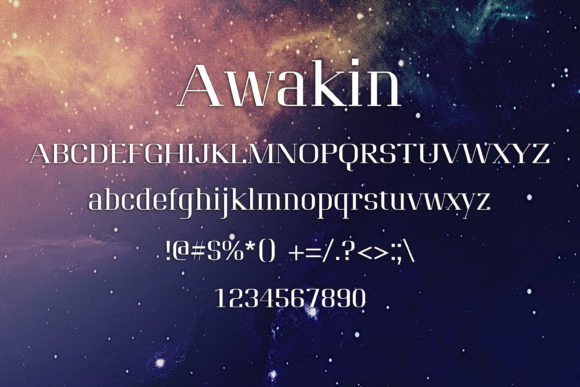
Introducing Awakin Font: Elevate Your Design with Elegance and Strength
Awakin is an elegant and strong display font that feels timeless. It will turn any design project into a true standout. Designed to make a statement, Awakin Font is perfect for crafters, designers, and anyone looking to add a touch of sophistication to their work.
What Makes Awakin Font Special?
Awakin Font boasts a unique blend of elegance and strength, making it an ideal choice for a wide range of design projects. Whether you’re working on a logo, branding materials, or marketing collateral, Awakin Font is sure to make your design stand out from the crowd.
Its timeless design ensures that your project will remain stylish and relevant for years to come, without looking dated or trendy. This is particularly useful for businesses and individuals looking to establish a strong brand identity that will endure over time.
Key Features of Awakin Font
• Elegant and Strong: Awakin Font combines elegance with strength, making it perfect for creating stunning headlines and titles.
• Timeless Design: Its classic design ensures that your projects will remain stylish and relevant for years to come.
• High Versatility: Suitable for a wide range of design projects, from logos and branding to marketing materials and more.
• Easy to Read: Despite its elegant and strong appearance, Awakin Font remains highly legible, even at smaller sizes.
Use Cases for Awakin Font
Awakin Font is incredibly versatile and can be used in a variety of design projects, including:
• Logo Design: Create a memorable and impactful logo that stands out from the competition.
• Branding Materials: Elevate your brand identity with elegant and strong typography.
• Marketing Collateral: Make your marketing materials, such as brochures, flyers, and posters, more engaging and eye-catching.
• Web Design: Use Awakin Font to create stunning headings and titles for your website, adding a touch of elegance and sophistication.
Tips for Using Awakin Font Effectively
To get the most out of Awakin Font, consider the following tips:
• Pair with Simpler Fonts: For body text, pair Awakin Font with simpler, more readable fonts to create visual contrast.
• Experiment with Sizes: Play around with different sizes to emphasize certain words or phrases and create visual hierarchy.
• Use Color Wisely: Choose colors that complement the elegant and strong feel of Awakin Font, such as deep blues, rich blacks, or luxurious golds.
Awakin Font is a powerful tool for designers and crafters looking to elevate their projects with elegance and strength. Its timeless design, versatility, and ease of use make it an excellent choice for a wide range of design applications. By incorporating Awakin Font into your design workflow, you can create stunning, standout projects that leave a lasting impression.
Get Ready to Awaken Your Designs
Don’t miss out on the opportunity to transform your designs with Awakin Font. With its unique blend of elegance and strength, Awakin Font is sure to become a go-to choice for designers and crafters around the world. Try Awakin Font today and discover a new world of design possibilities!